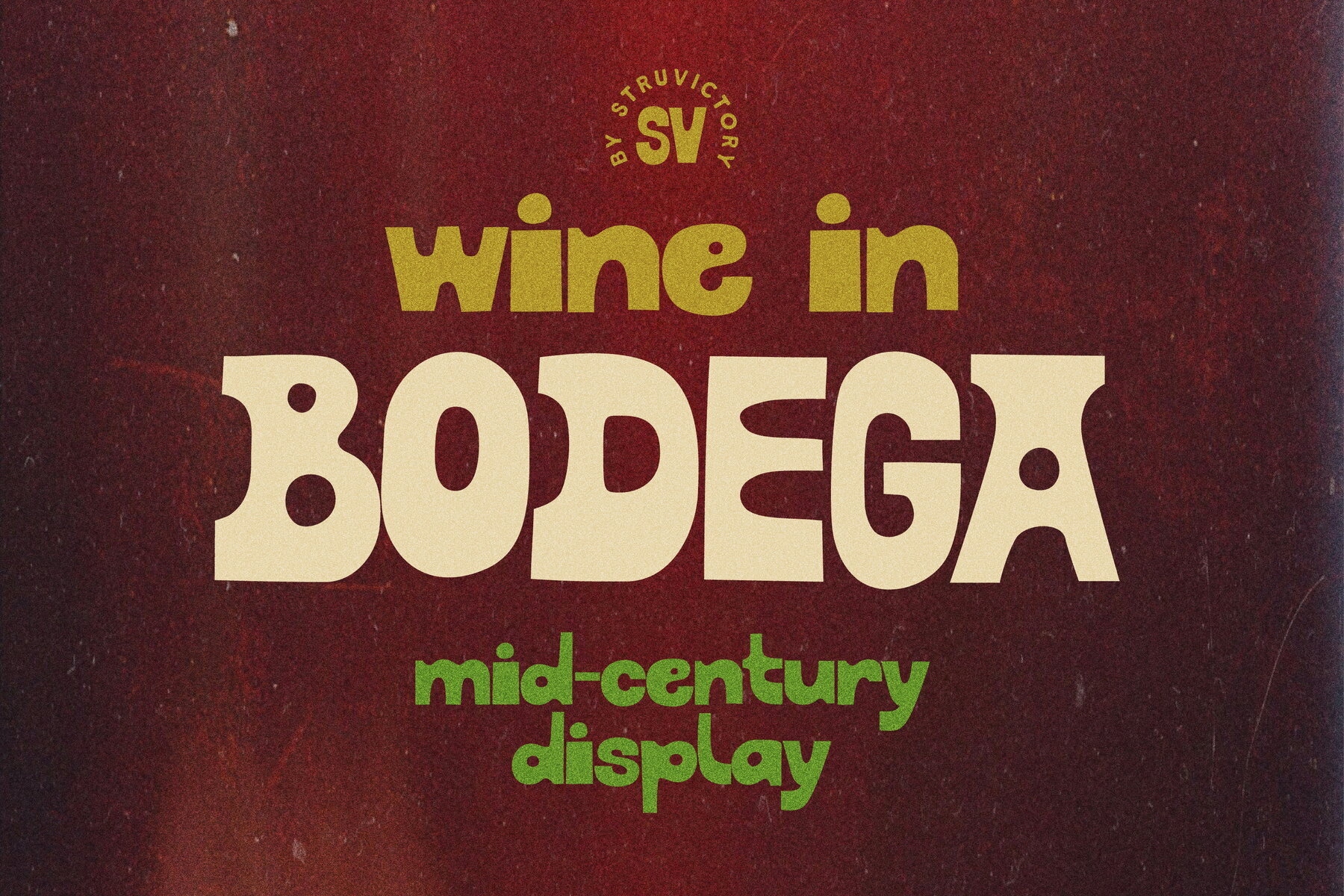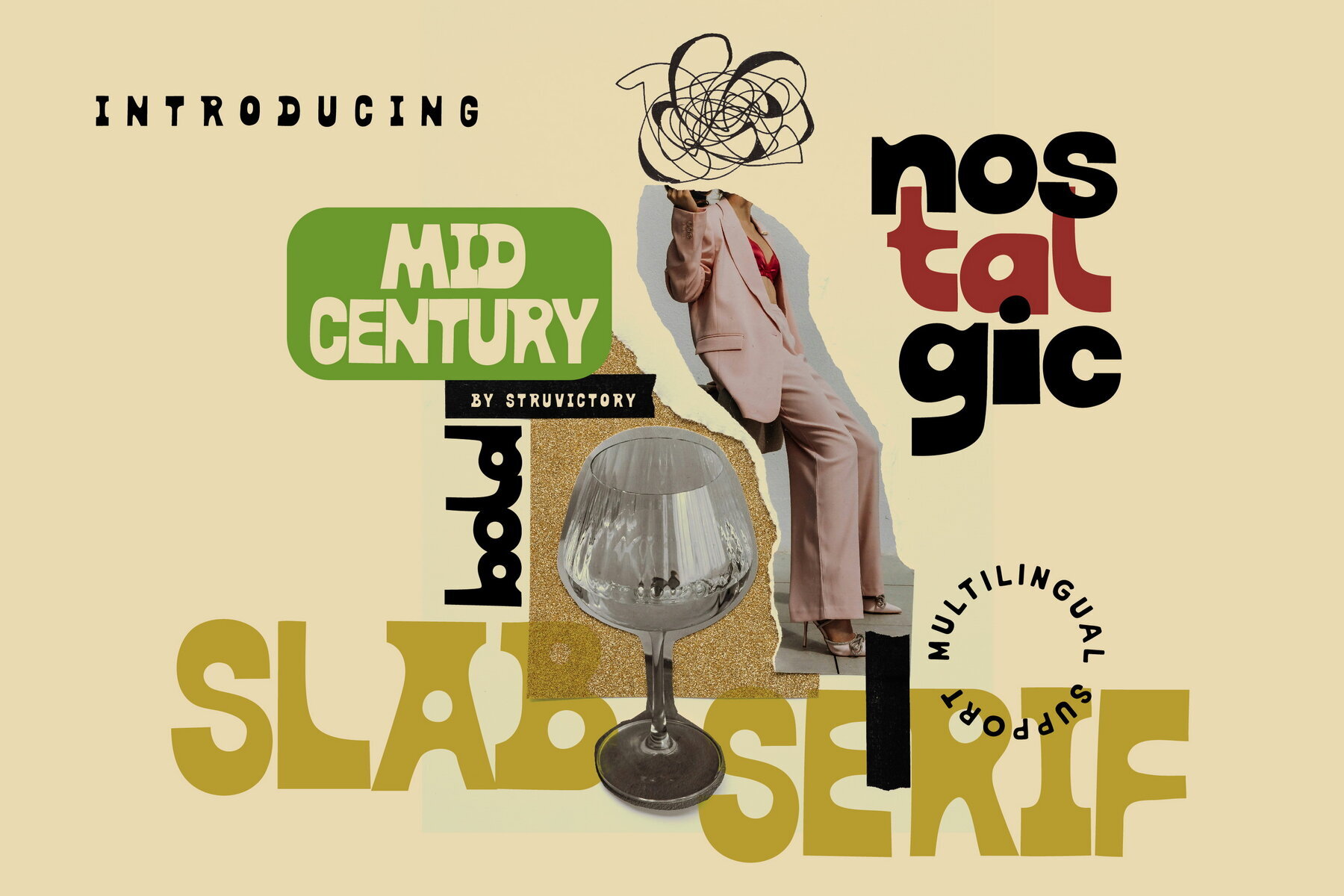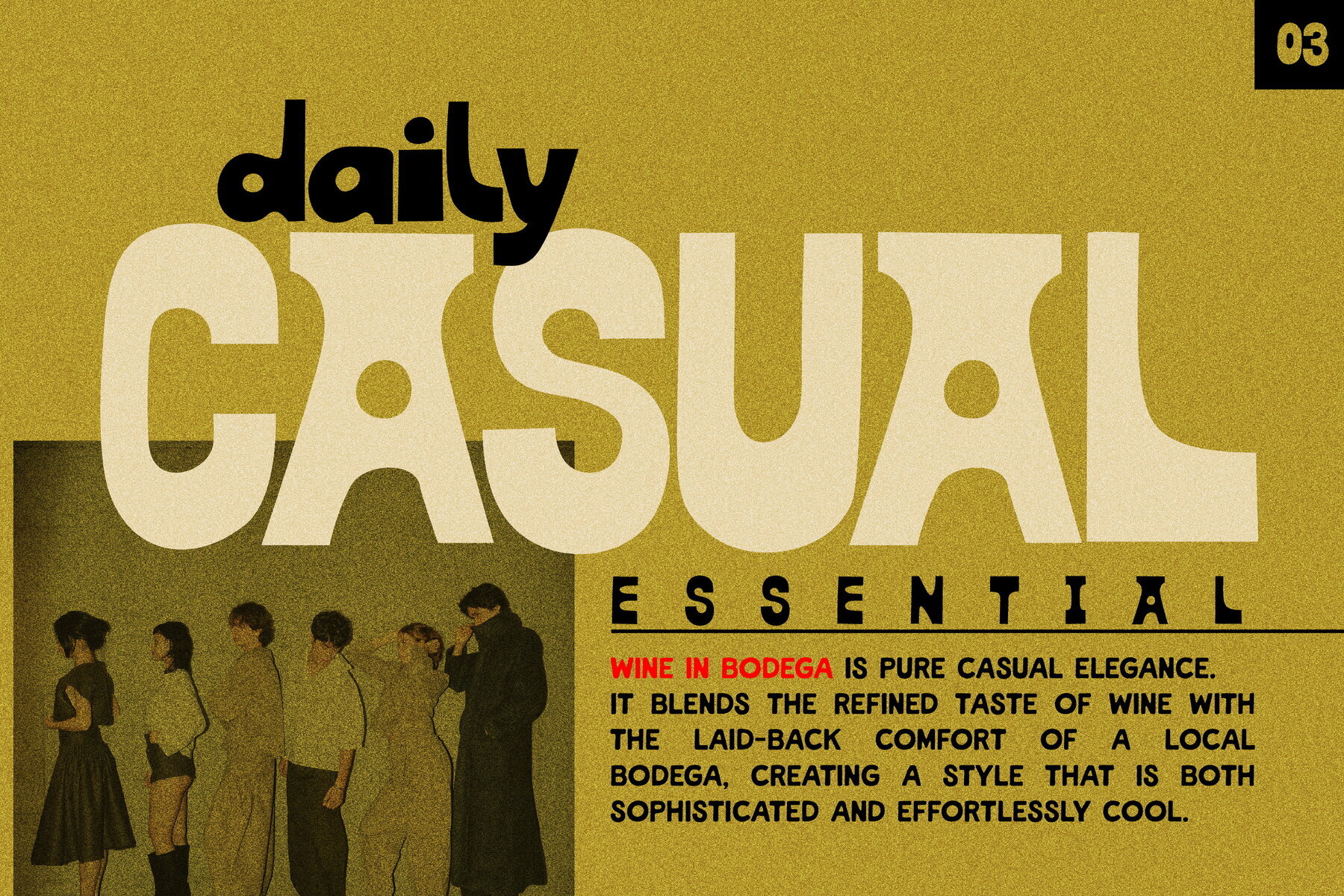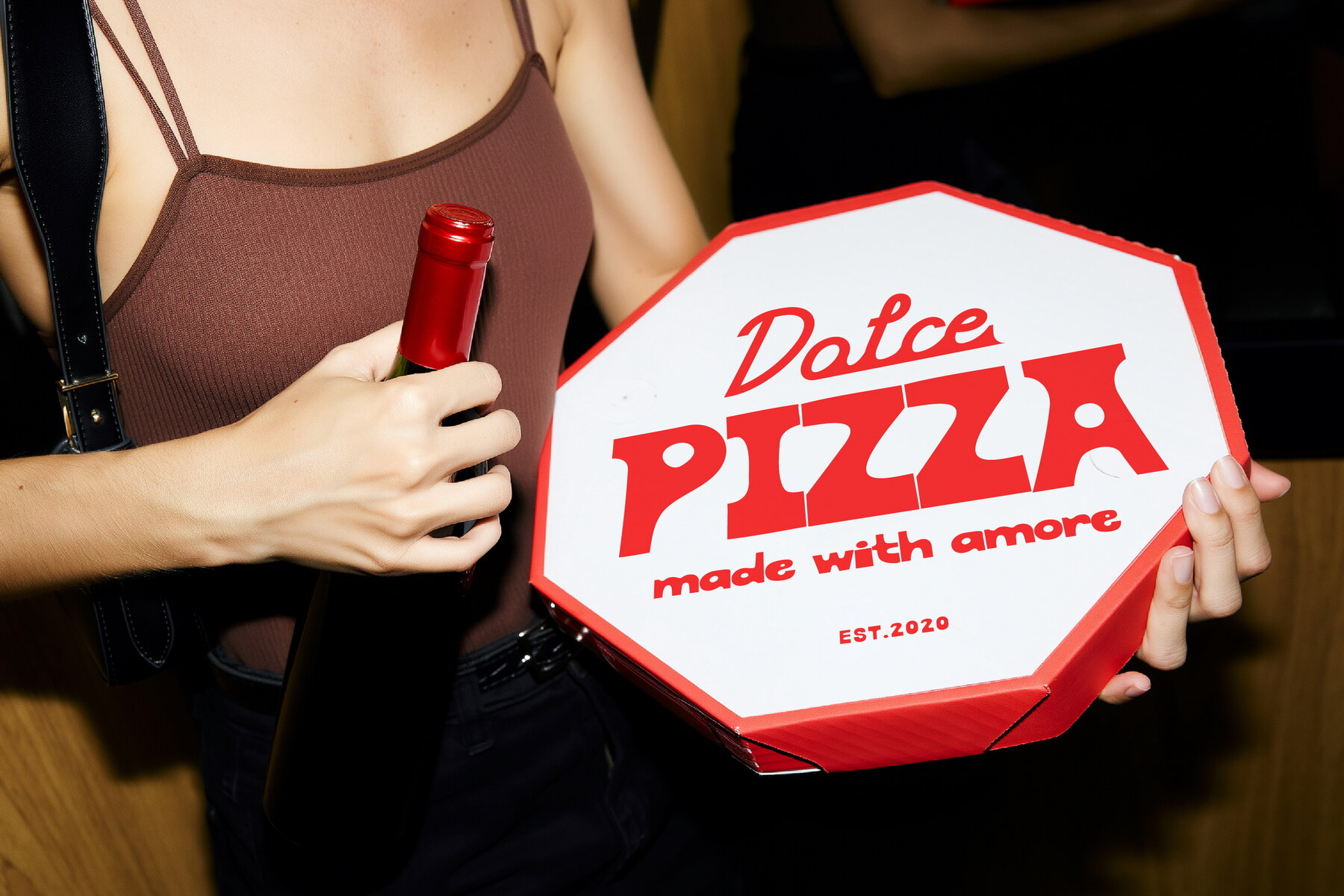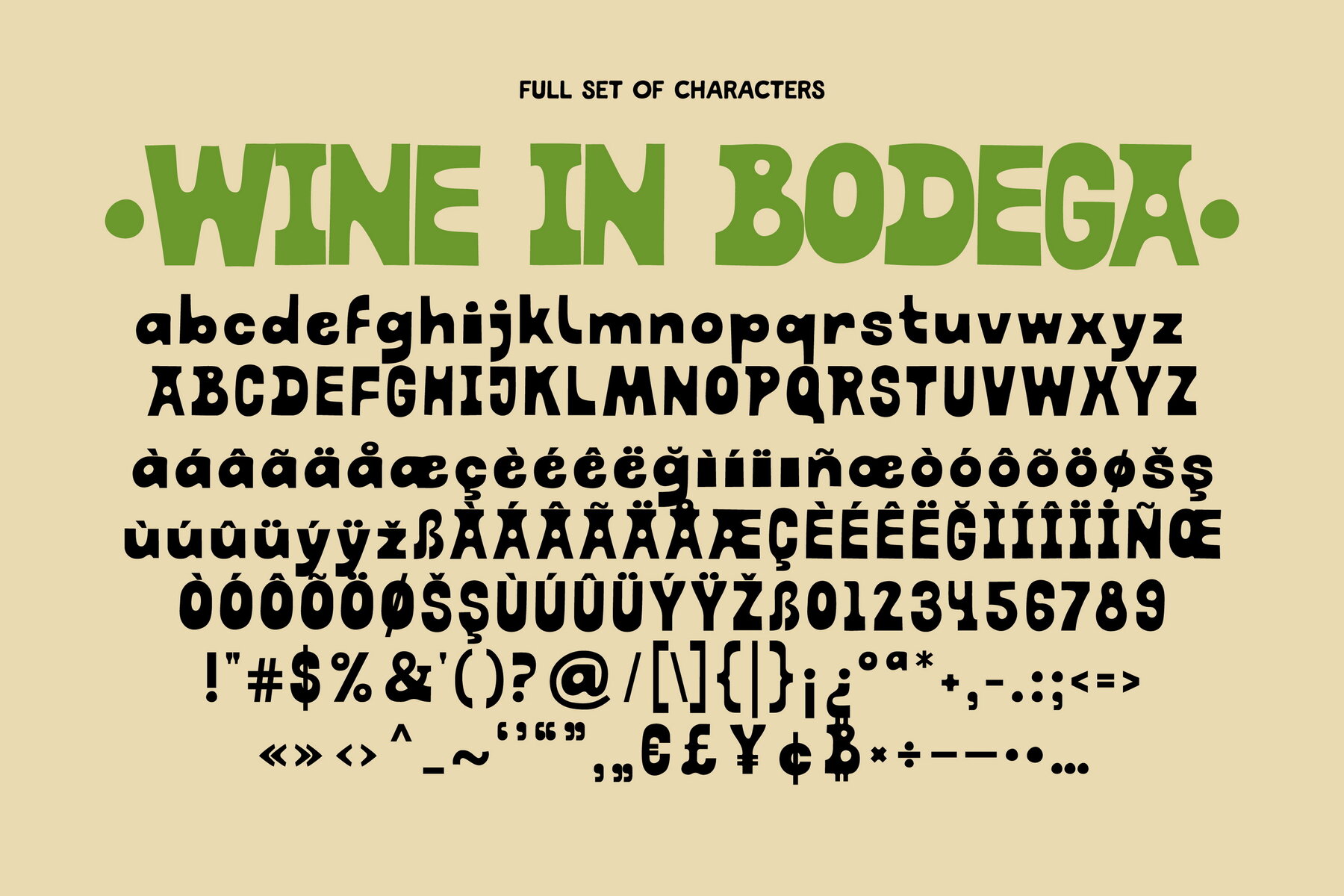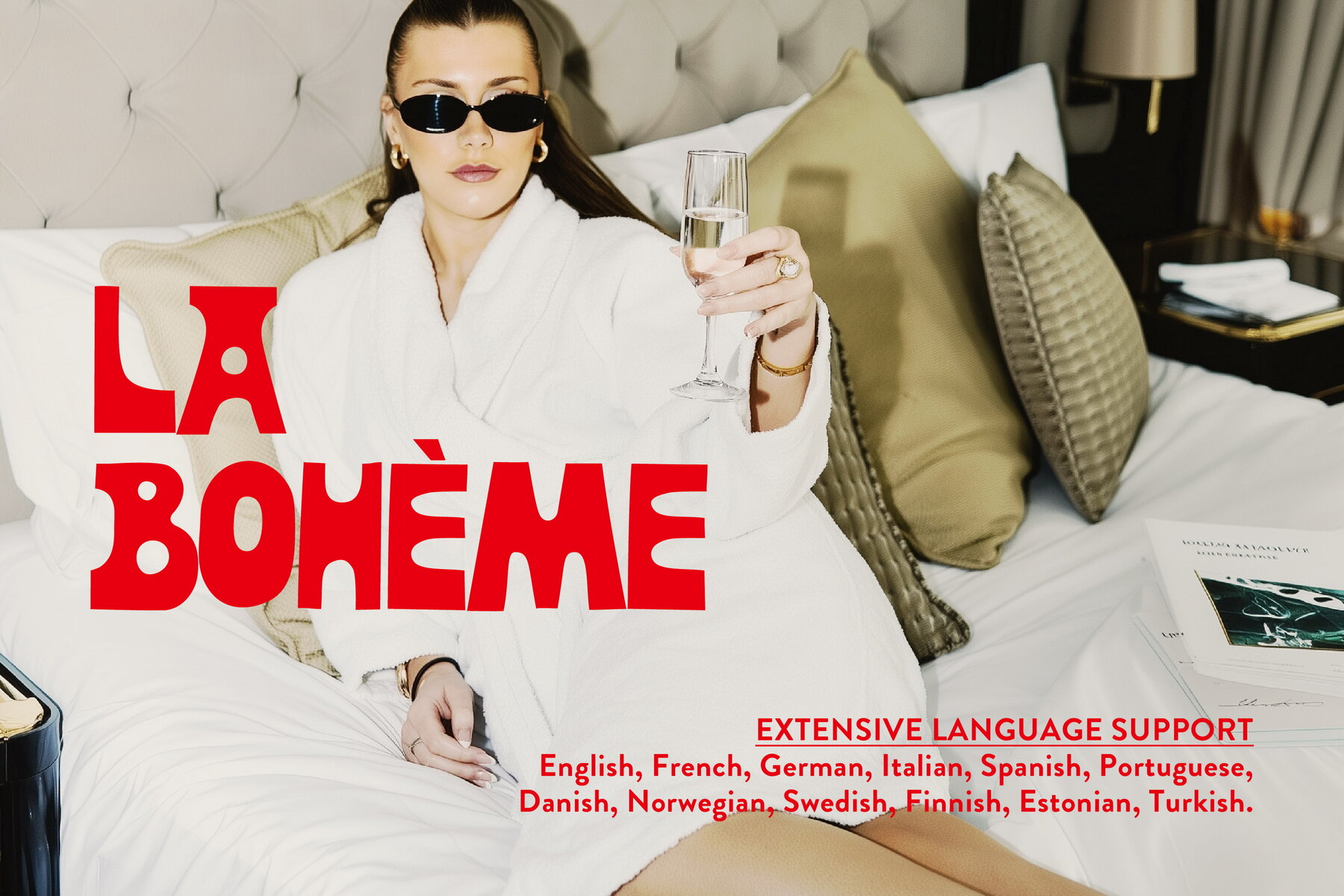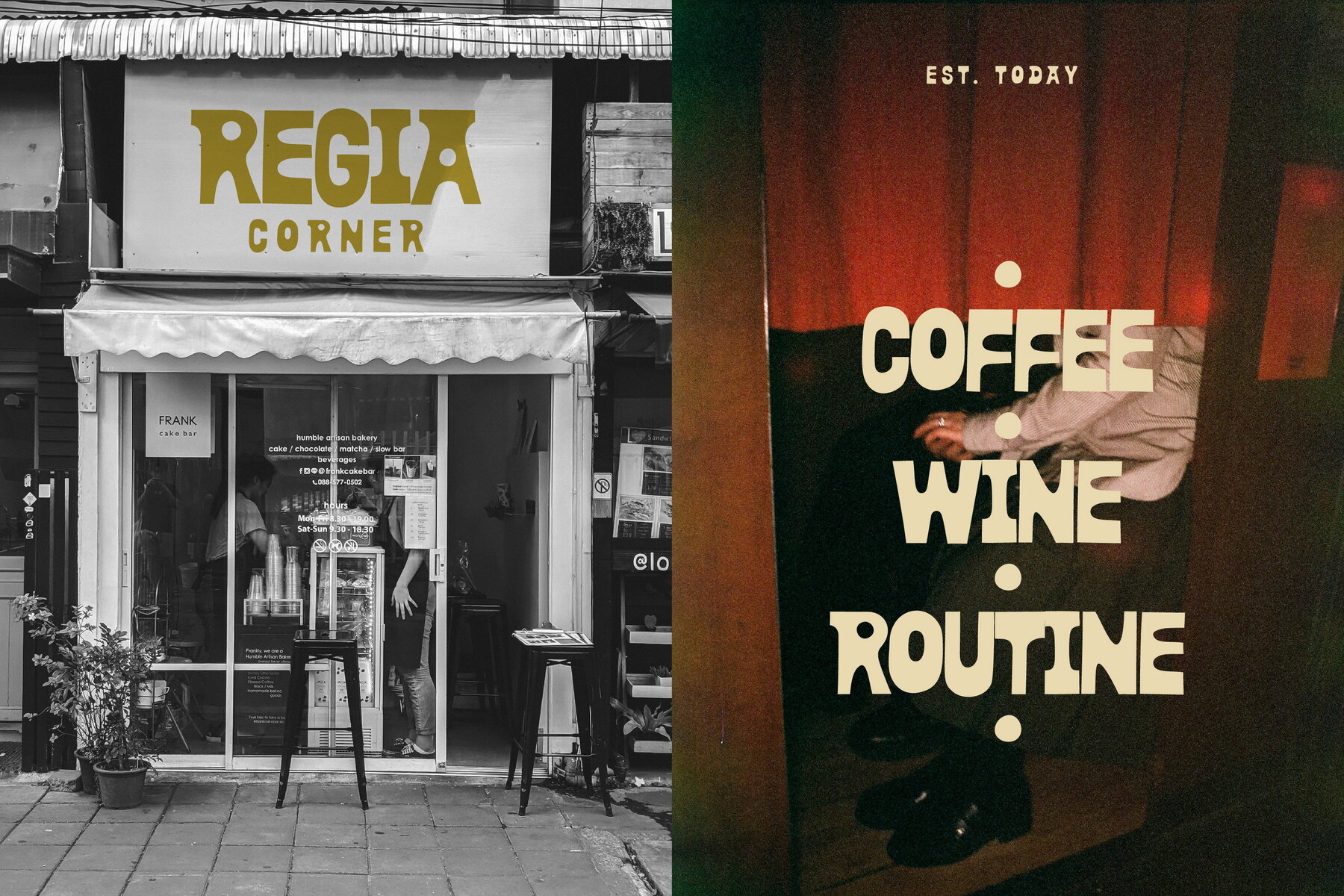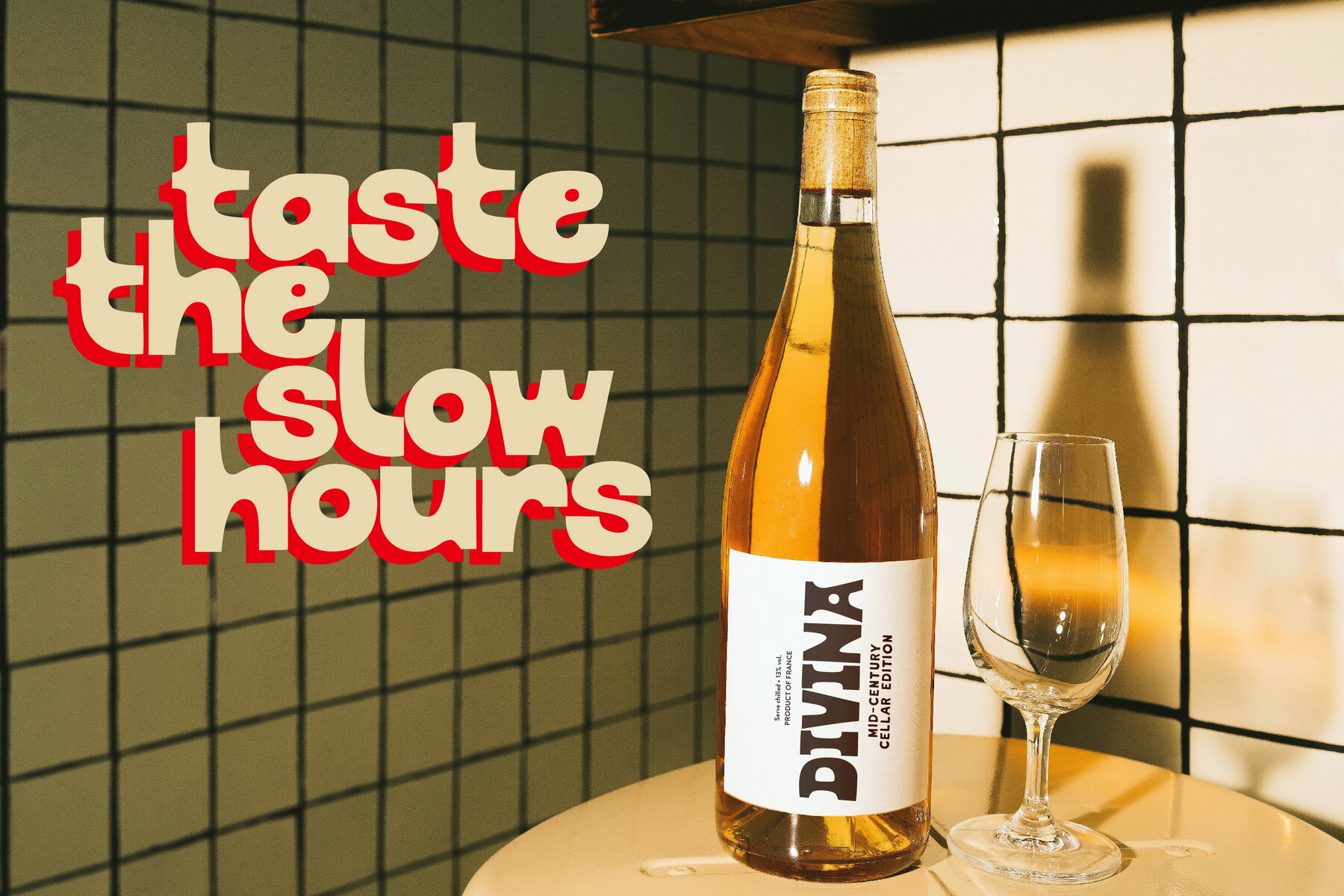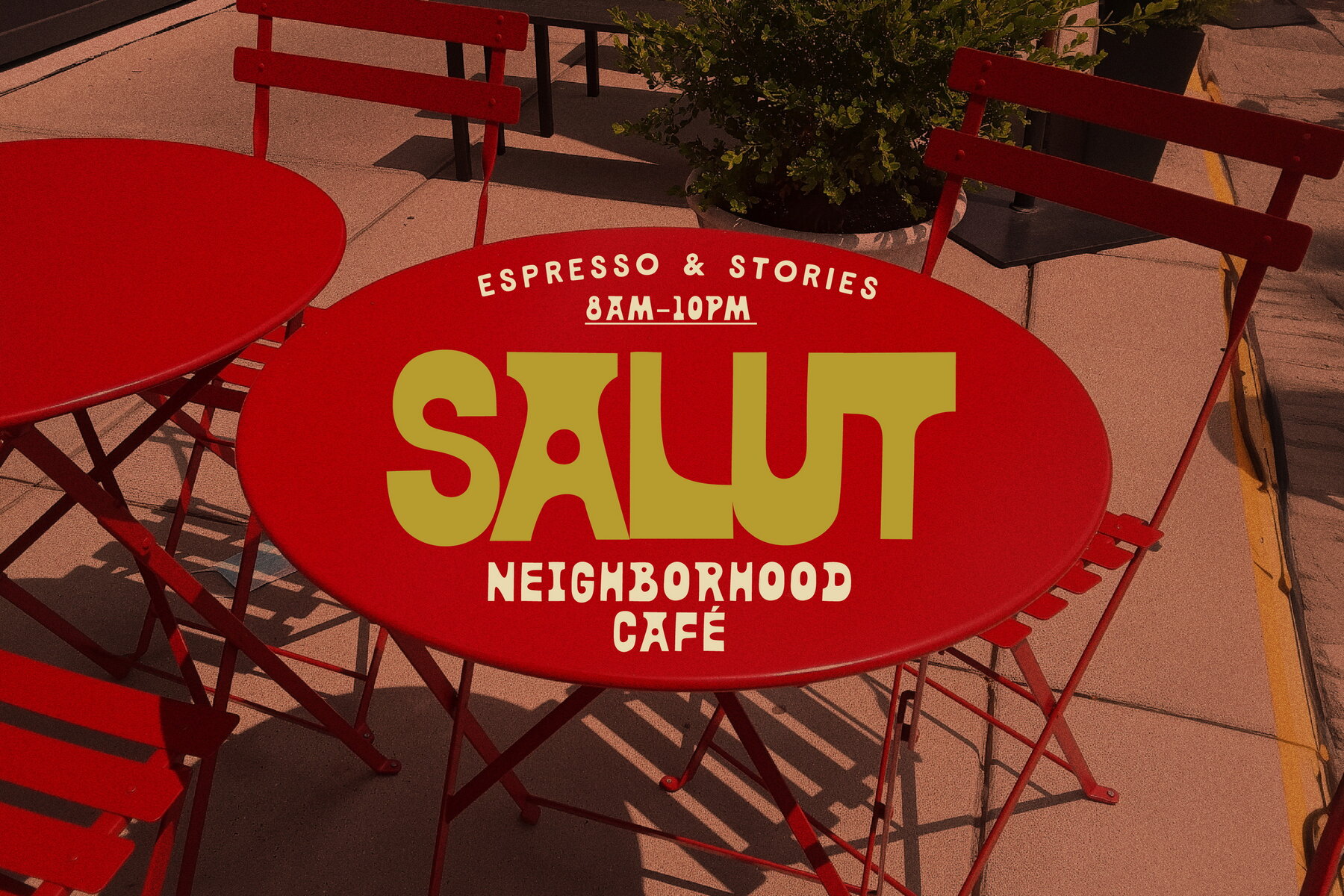
Wine In Bodega Font
Wine In Bodega Sans
Wine in Bodega is a display font that draws inspiration from mid-century design. It captures a sense of everyday sophistication through its bold curves, relaxed proportions, and a subtle retro flair. Ideal for a range of creative applications, from logos to menus and boutique packaging, this font introduces the cozy elegance reminiscent of vintage cafés, classic wine labels, and boutique signage, while maintaining a modern casual appeal. Whether you're crafting a brand for a local café, curating materials for a creative studio, or designing a timeless print piece, Wine in Bodega delivers that easy-going mid-century vibe. It is both familiar and refreshingly new, combining style and warmth beautifully. Features:Wine in Bodega: Mid-Century Display Font